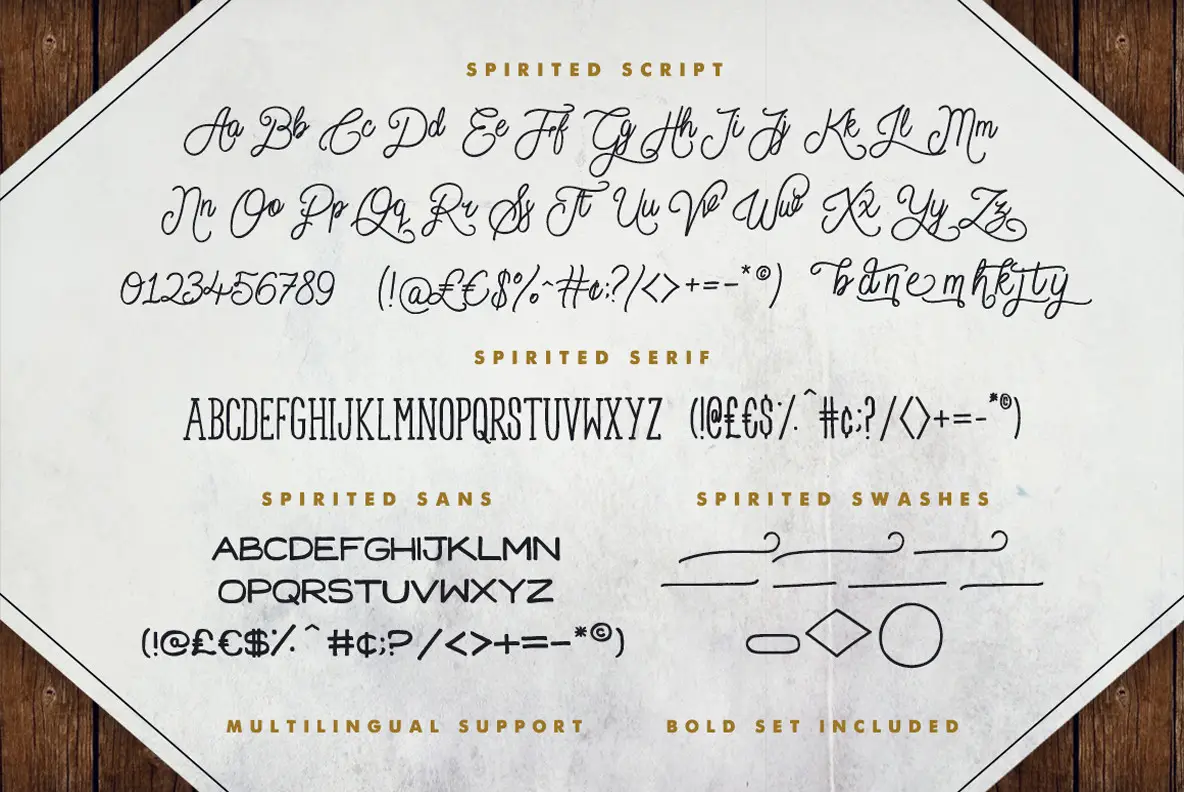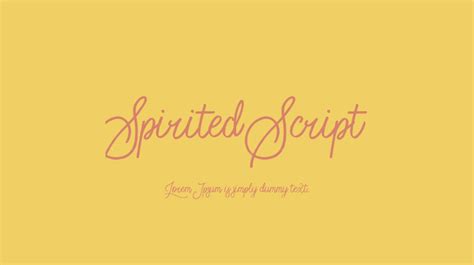
Spirited Script Font Family . Web introducing spirited font family! Web spirited script font family designed by unknown designer has a total of 2 different styles.
702,364 downloads (374 yesterday) free for personal use. Web this font set with its distinct vintage style is perfect for the quick creation of handwritten quotes, logos and designs with an. Web high spirited à € by octotype | thomas boucherie.
Web spirited script font family series mainly provide regular and other font styles. Spirited designed and shared by sam parrett. This font is from the spirited family and we found 7 variations. Moreover, you can embed it to.
Spirited Script Font Family - Web download the spirited font family. This font is from the spirited family and we found 7 variations. Web this font set with its distinct vintage style is perfect for the quick creation of handwritten quotes, logos and designs with an. Web spirited script font family series mainly provide regular and other font styles. Each has been carefully designed to.
Spirited Script Font Family - This font is from the spirited family and we found 7 variations. Web spirited script font family series mainly provide regular and other font styles. Each has been carefully designed to work in harmony with each. You can download the spirited script. Web download the spirited font family.
Spirited Script Font Family - Click on the page link. Web introducing spirited font family! Spirited designed and shared by sam parrett. Web this font set with its distinct vintage style is perfect for the quick creation of handwritten quotes, logos and designs with an. Web spirited script font family series mainly provide regular and other font styles.
Spirited Script Font Family - Each has been carefully designed to work in harmony with each. Web spirited script font family designed by unknown designer has a total of 2 different styles. This font is from the spirited family and we found 7 variations. You can download the spirited script. 702,364 downloads (374 yesterday) free for personal use.
Spirited Script Font Family - Web high spirited à € by octotype | thomas boucherie. Web spirited script font family designed by unknown designer has a total of 2 different styles. You can download the spirited script. Web introducing spirited font family! Click on the page link.
Spirited Script Font Family - This font is from the spirited family and we found 7 variations. Web spirited script font family designed by unknown designer has a total of 2 different styles. Moreover, you can embed it to. Web download the spirited font family. Web spirited script font family series mainly provide regular and other font styles.
Spirited Script Font Family - This font is from the spirited family and we found 7 variations. Moreover, you can embed it to. Web spirited script font family designed by unknown designer has a total of 2 different styles. Web introducing spirited font family! Web spirited script font family series mainly provide regular and other font styles.
Spirited Script Font Family - Web spirited script font family series mainly provide regular and other font styles. Each has been carefully designed to work in harmony with each. Web spirited script font family designed by unknown designer has a total of 2 different styles. 702,364 downloads (374 yesterday) free for personal use. Web introducing spirited font family!
Spirited Script Font Family - Spirited designed and shared by sam parrett. Click on the page link. 702,364 downloads (374 yesterday) free for personal use. Web this font set with its distinct vintage style is perfect for the quick creation of handwritten quotes, logos and designs with an. You can download the spirited script.
Spirited Script Font Family - You can download the spirited script. 702,364 downloads (374 yesterday) free for personal use. Web introducing spirited font family! Web spirited script font family series mainly provide regular and other font styles. Web spirited script font family designed by unknown designer has a total of 2 different styles.
Spirited Script Font Family - 702,364 downloads (374 yesterday) free for personal use. Web spirited script font family designed by unknown designer has a total of 2 different styles. Moreover, you can embed it to. Each has been carefully designed to work in harmony with each. Web spirited script font family series mainly provide regular and other font styles.
Spirited Script Font Family - Web introducing spirited font family! Spirited designed and shared by sam parrett. You can download the spirited script. Web spirited script font family series mainly provide regular and other font styles. Web download the spirited font family.
Spirited Script Font Family - Each has been carefully designed to work in harmony with each. Spirited designed and shared by sam parrett. Web high spirited à € by octotype | thomas boucherie. 702,364 downloads (374 yesterday) free for personal use. This font is from the spirited family and we found 7 variations.